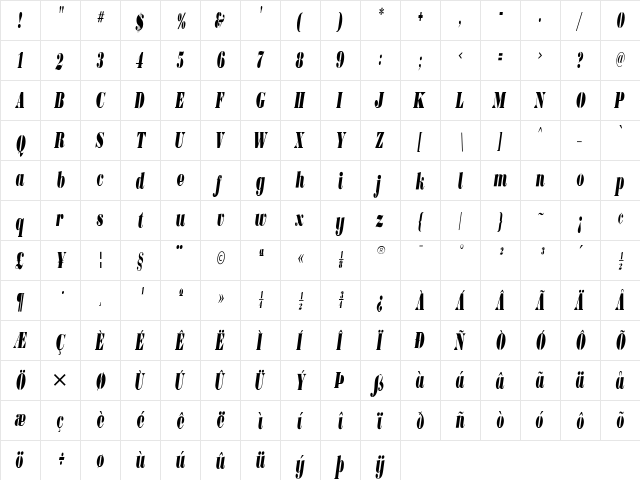
BodoniUltraFLFCond Medium Italic Font Preview
Design Context for BodoniUltraFLFCond Typeface
BodoniUltraFLFCond offers clean, dependable letterforms without strong stylistic allegiance, making it a practical choice for designers who need flexibility. The slanted form adds forward momentum and visual energy. The condensed width makes it efficient for tight spaces without sacrificing legibility.